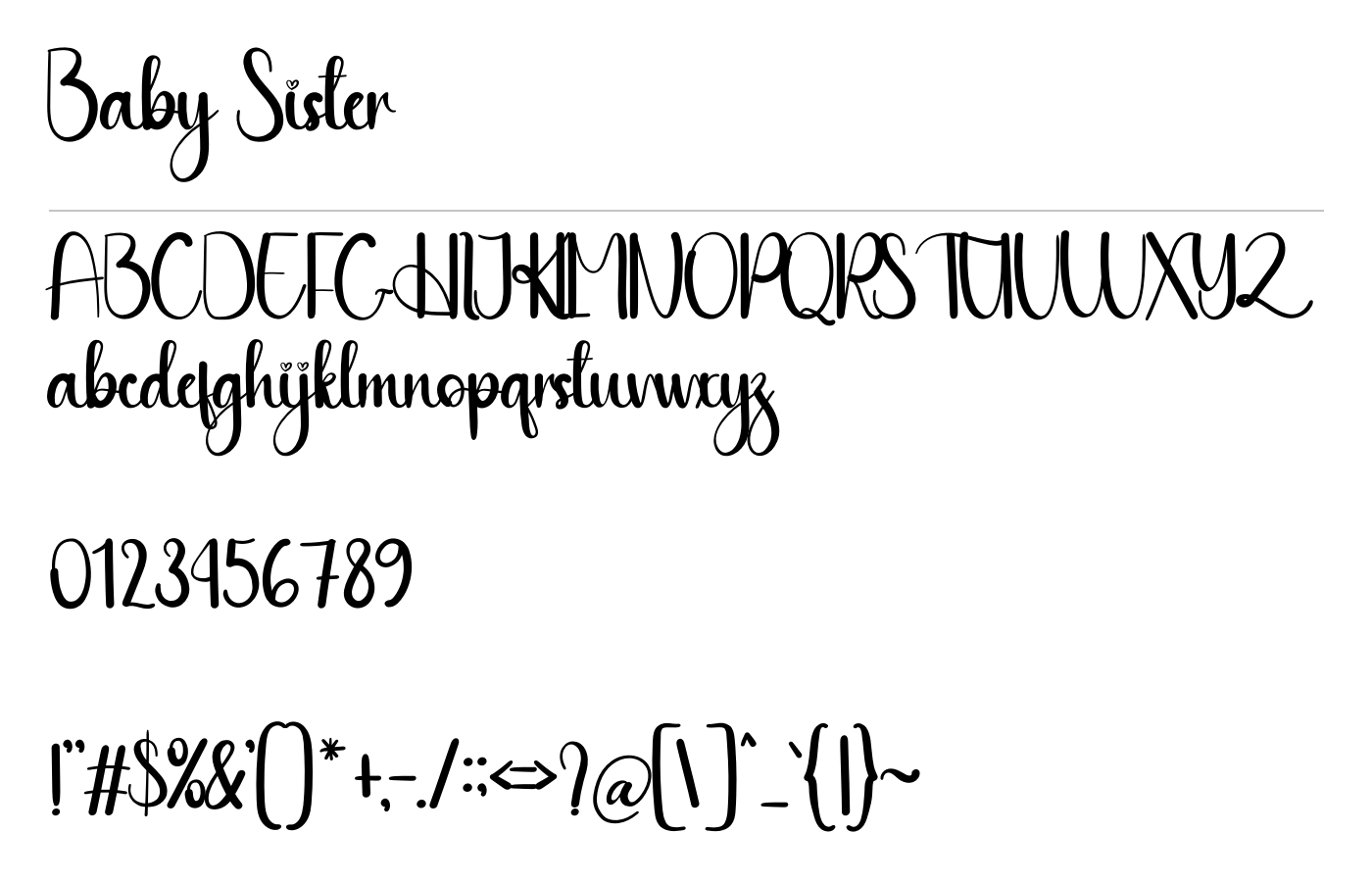
Baby Sister is a playful and charming handwritten script font featuring tall, slender letterforms with smooth, flowing strokes and delightful heart-shaped accents that add a touch of whimsy. Its light weight and airy spacing make it perfect for creative, casual designs such as greeting cards, children’s products, and feminine branding, where a friendly and approachable feel is desired. This font shines in headlines and decorative uses, bringing a modern yet sweet personality to any project.
Baby Sister Font
About Baby Sister Font